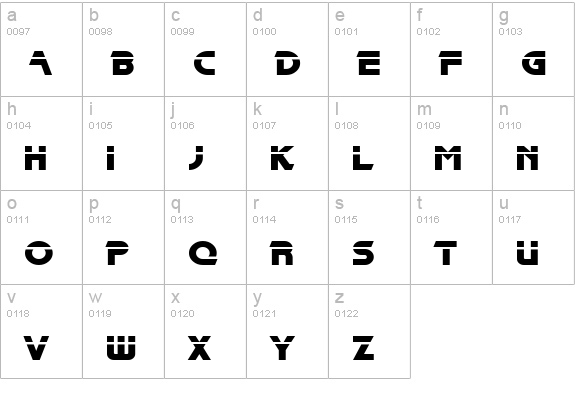
BladeCutThru Font Details
BladeCutThru font is a sleek and modern typeface that exudes a sense of cutting-edge sophistication. With its sharp lines and bold letterforms, this font is perfect for making a bold statement in your designs. The BladeCutThru font is versatile and can be used for a variety of projects, from branding to editorial design. Best of all, BladeCutThru font is available for free download at FontsMarket.com. Whether you're a designer on a budget or just looking to experiment with a new font, BladeCutThru is the perfect choice. Don't miss out on this opportunity to elevate your designs with the striking BladeCutThru font. Download it today and let your creativity run wild!